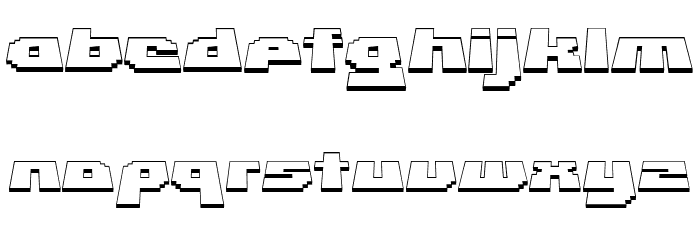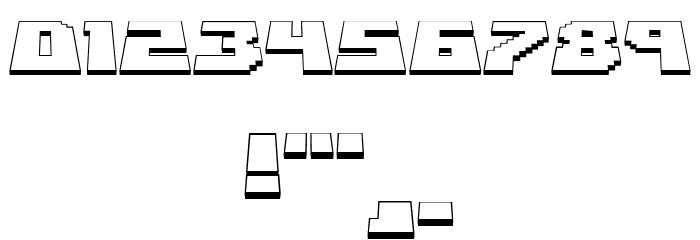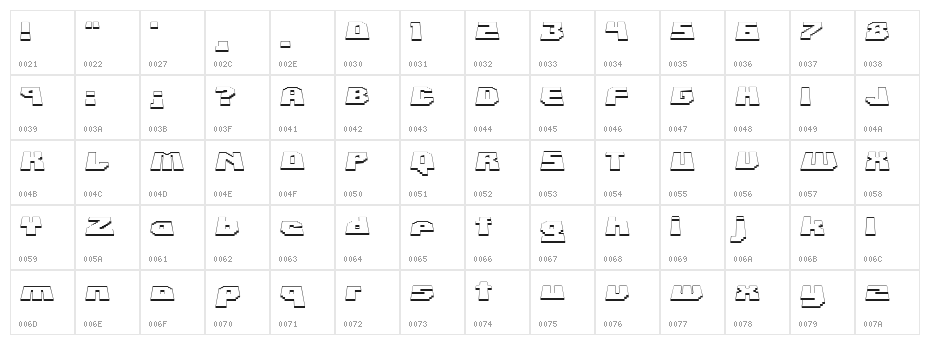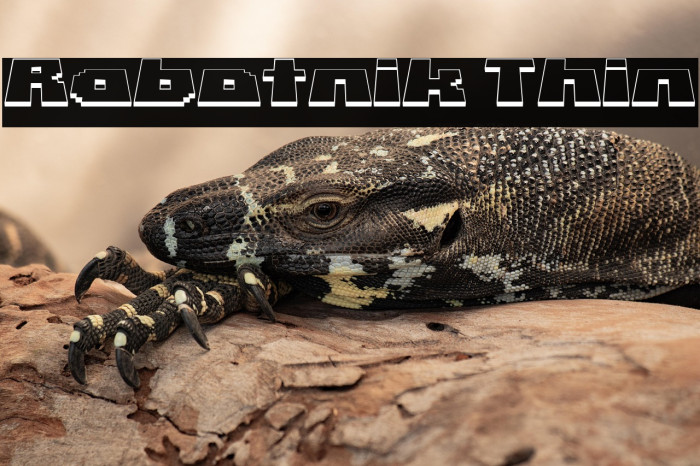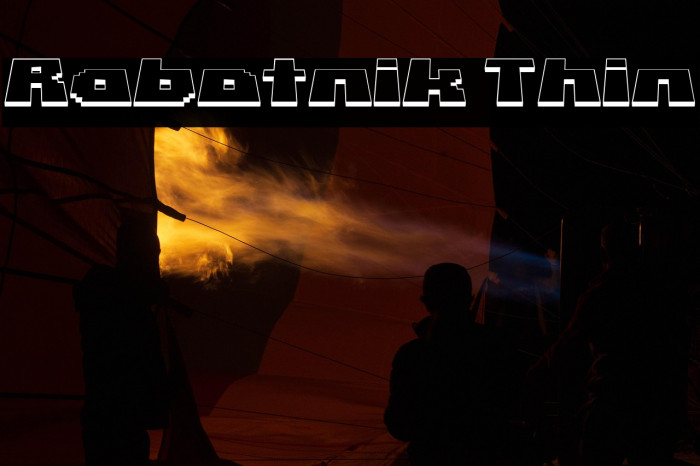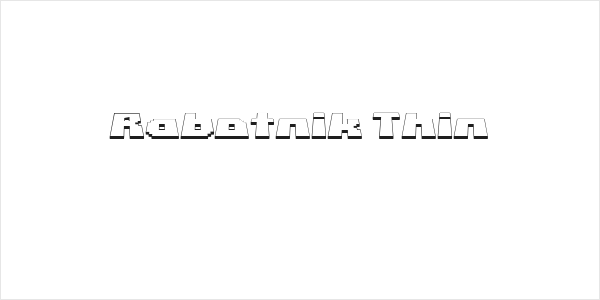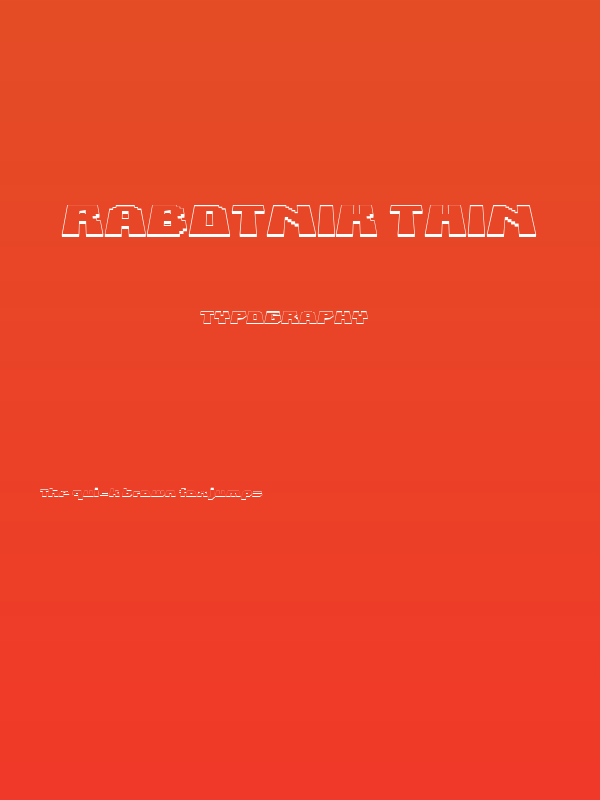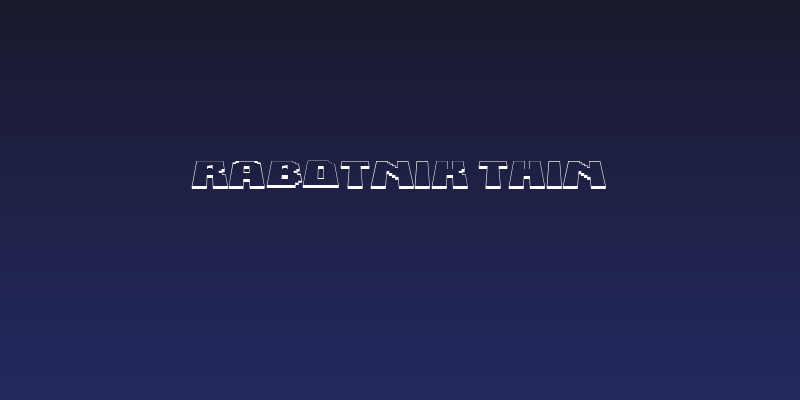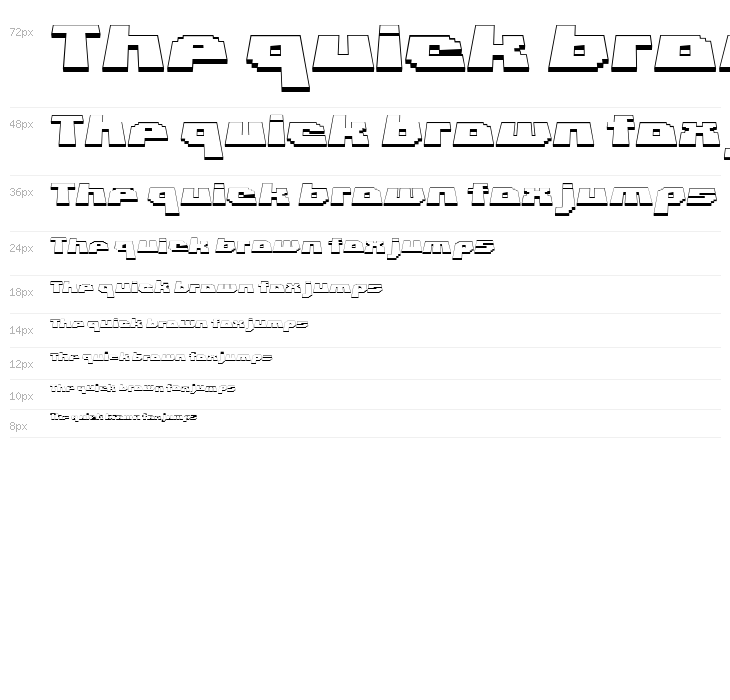
Rabotnik Thin Font
This font features a bold, three-dimensional block style with a distinct shadow effect that gives it a futuristic and digital appearance. The characters are constructed with sharp, angular lines, creating a sense of depth and movement. The uppercase and lowercase letters maintain a consistent geometric form, while the numbers and special characters follow the same design principles, ensuring uniformity across the typeface. The font's unique style makes it stand out, ideal for projects that require a modern and edgy look.
A bold, 3D block font with a futuristic digital style.
- Font: Rabotnik Thin
- Proposed Projects: Ideal for video game titles, tech-themed posters, digital art projects, and modern branding.